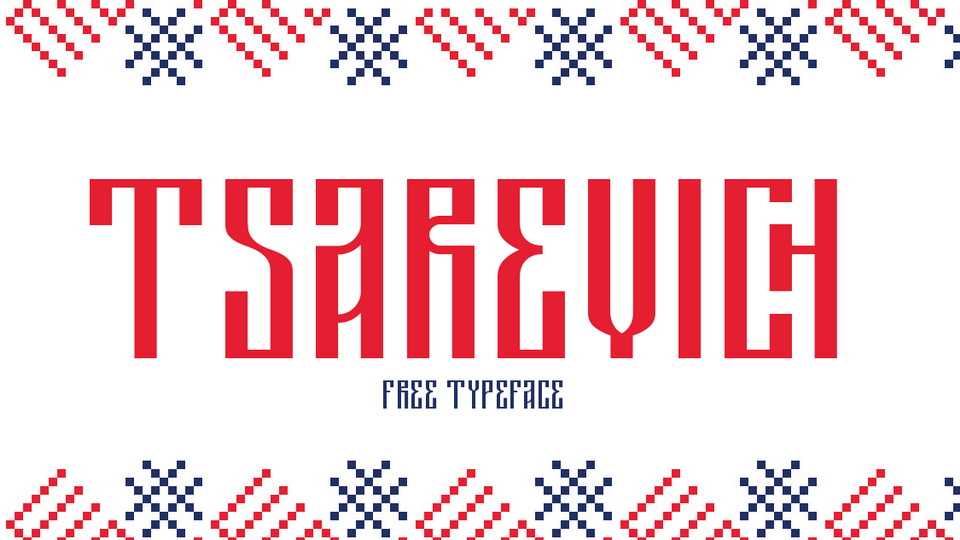
Download Tsarevich font, a unique font based on old Russian calligraphy in three weights – Light, Regular and Bold. Great for logos, headlines, branding and other authentic projects.
Designer: Misha Panfilov